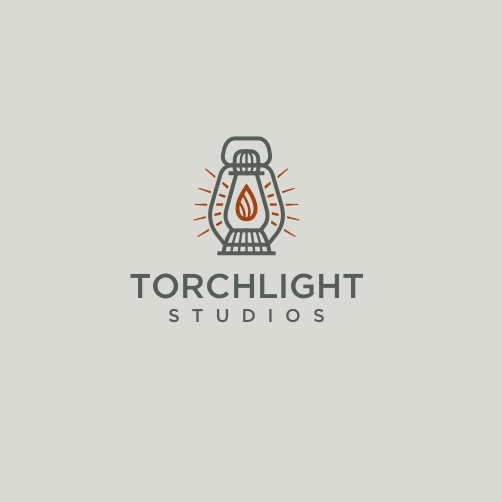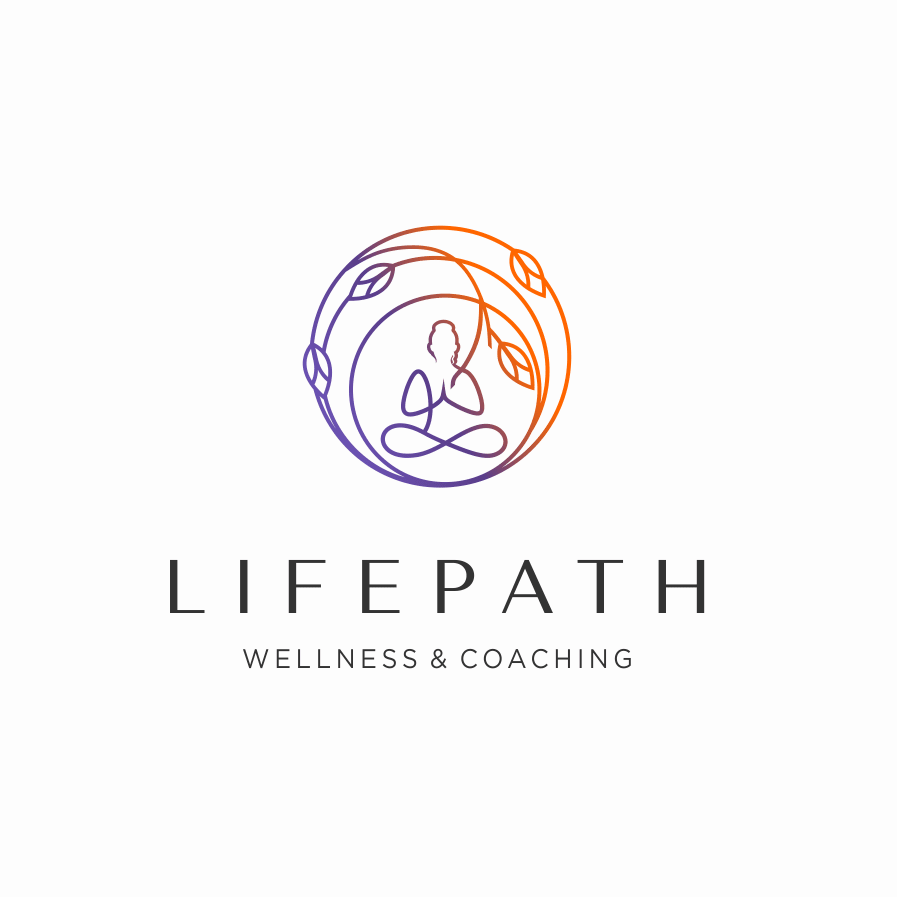
When we think about logos our minds often go to the graphic or pictorial elements. And why not? Distilling a brand into a single graphic is a complex process. But choosing the font for your logo is of equal importance since it communicates crucial information like your name and industry.
While you will have the opportunity to use other fonts in other design assets—websites, brochures, printed products, email blasts and business cards—your logo font is what audiences will most associate with your brand. That’s why it’s important to consider how a font will perform when customers see it not only for the first time but on repeated viewings.
What associations will they bring to the font? What assumptions will they make about your brand identity based on it? To answer these questions and more, we’ve put together these tips and guidelines to help you choose a logo font that’s right for you. Read on to find the typefaces that work best for your brand.
The basic font types and their brand associations
Different fonts communicate different attributes and have their own individual personalities. Your future customers will make assumptions about your business just by the font in your logo without even realizing it! This is why—with logos more than almost any other design project—it’s so important for your font to resonate with your brand.
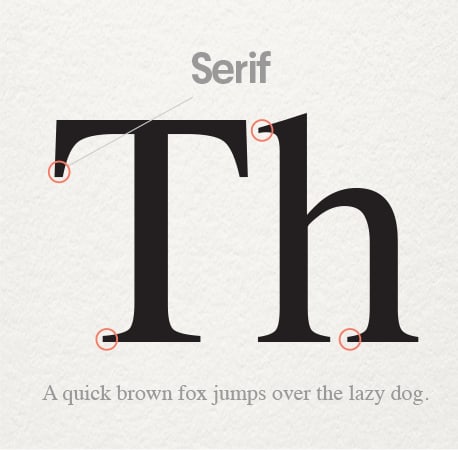
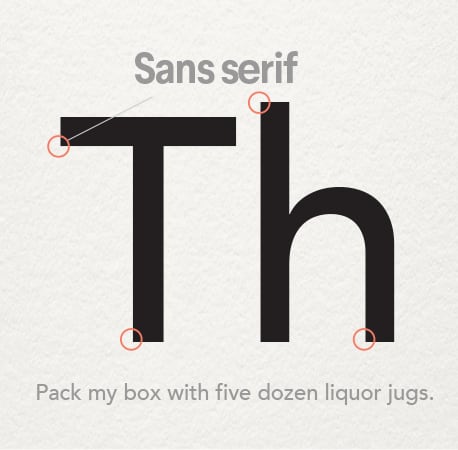
The following is a basic rundown of the font categories at your disposal, but do read our more detailed discussion on the different types of fonts to understand more deeply what association each font type will evoke in potential customers.
- Serif
- Classic, refined, conservative, tradition.
- Sans-Serif
- Modern, clean, geometric, simple.
- Slab serifs
- Vintage, rustic.
- Script
- Refined, feminine, ornate, elegance.
- Handwritten
- Bespoke, custom, casual, approachable.
- Display: typewriter, novelty, everything else
- Funky, unusual
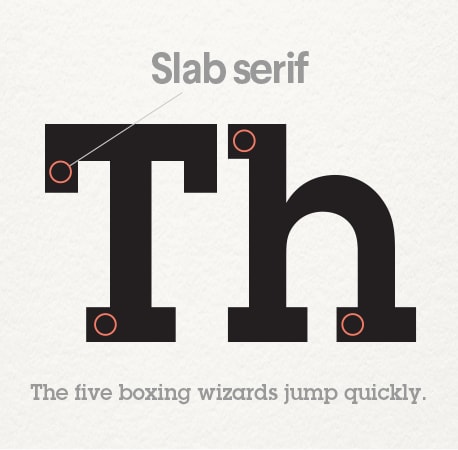
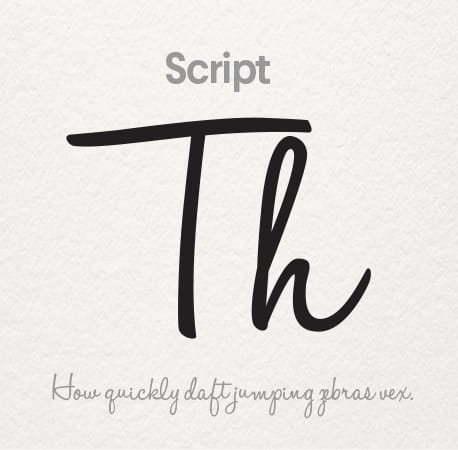
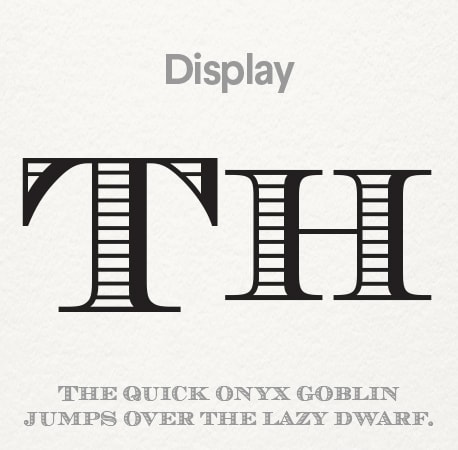
Font weight and style
Once you choose your basic font category, you can narrow down your selection further through style characteristics. Most fonts come in a range of subtle variations and weights—from hair-thin to super thick, condensed and tight to wide and spacey. A thick weight might work great for a short name but could look too thick and bulky for a longer name. A thin font might look great on a billboard but also could vanish on a business card at a small point size. Thin fonts will always feel delicate and are better suited for a more refined logo, while heavier fonts feel more assertive.
Be sure to review the entire font before you make your choice. Every font has one or two small elements that make it new and different—the way a y curls beneath another letter or maybe the way the P and r lean into each other. In the case of The Fields logo pictured above, the thick serifs of the E are incredibly distinctive. Because they only appear twice in the logo, they create visual interest—more than that might have been distracting and a poor choice.
These characteristics are the little touches that make your logo unique but also contain potential pitfalls. Imagine buying the license for your dream font and finding out you hate how the uppercase S’s look—no big deal, right? It would be for a business called Sally’s Salon! Take the time to look at all the letterforms in both cases before selecting your fonts.
Meeting industry expectations
An important consideration when choosing a font for a logo is not only how you want it to look but how you want it to feel. Does your logo need to have a historic connotation or a sleek and modern sheen? This most likely comes down to industry. A rustic vibe might suit a mechanic shop but will feel out of place on a logo for a software company. Finding a typeface that gels with a particular industry is all about meeting the consumer’s expectations.
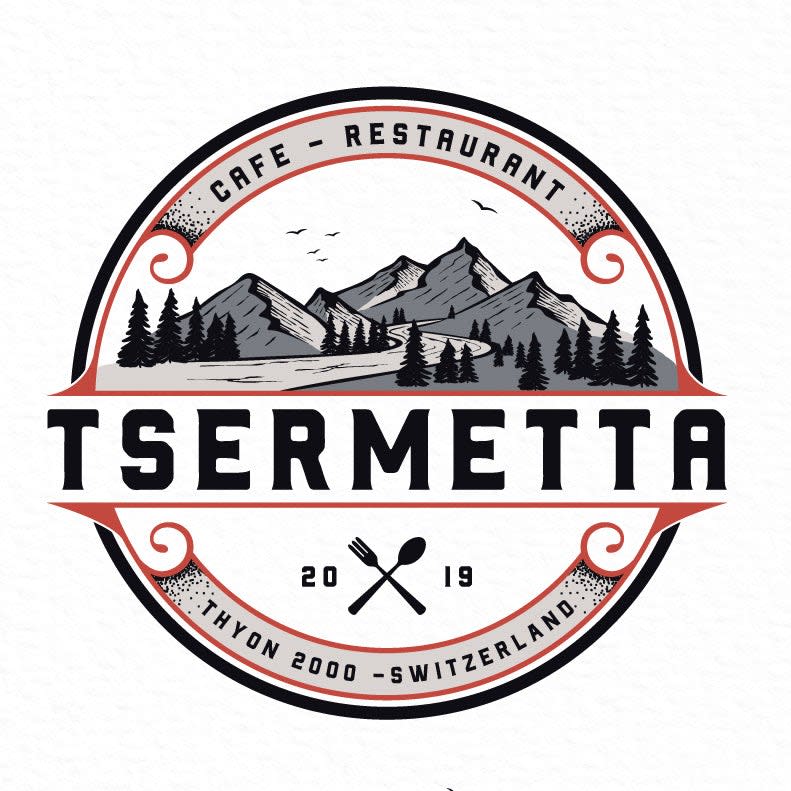
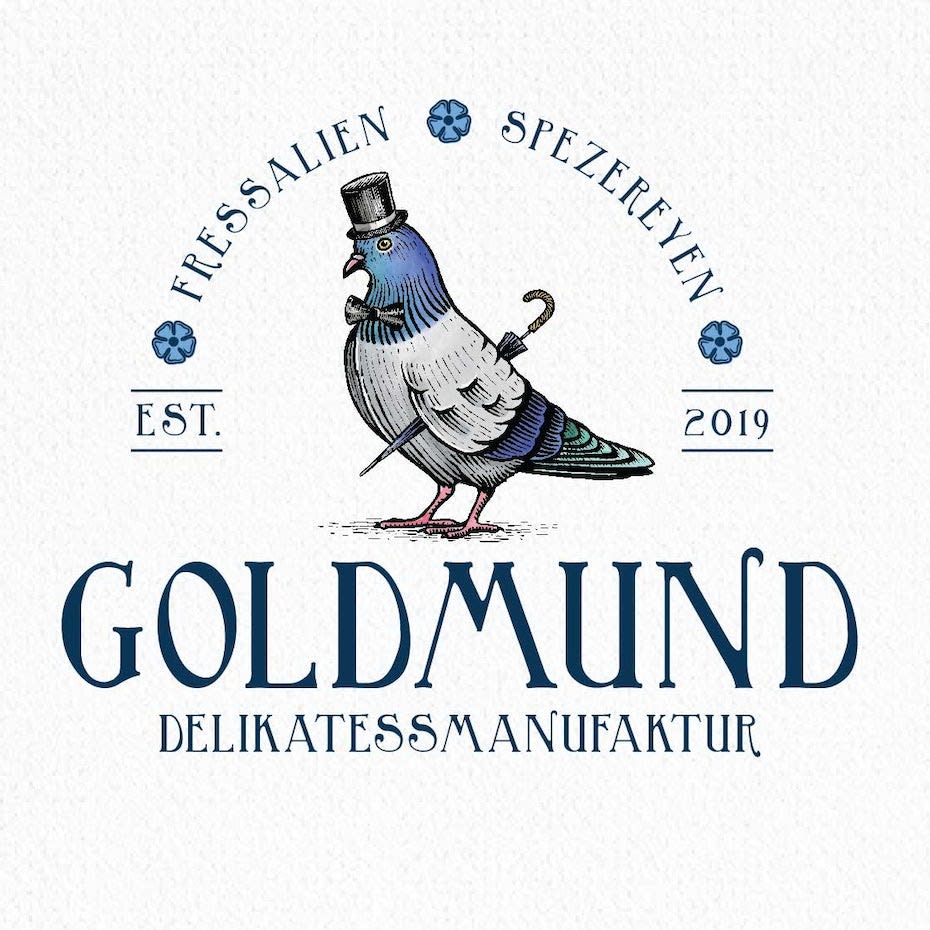
At the same time, be wary of fonts that feel too overdone. Retro slab serifs are so popular with breweries that they’ve ceased to stand out. Same with characterless sans-serifs for tech companies. There’s a balance that needs to be struck between recognizable and overdone. You want a logo that feels in line with competitors but also still feels fresh.
How to combine fonts in a logo
First off: never use more than two or three different fonts in a logo. A design composition must maintain a visual hierarchy so that a reader’s eyes know the order of importance within the information being presented. Normally a logo is a combination of text and symbol, but how they’re combined depends on the type of logo you choose.
The main brand name should be in one font and the supporting text, such as your tagline or brand description, should be in another. If you have other information you want to include—your establishment year, for example—keep it small and clean. Consider using a different weight of one of the other fonts to keep the elements harmonious.
Use your brand’s values as your guide while following the above guidelines and you’ll be on your way to stunning logo design!